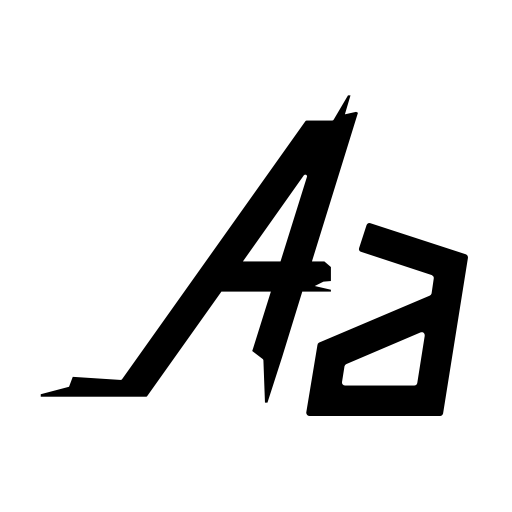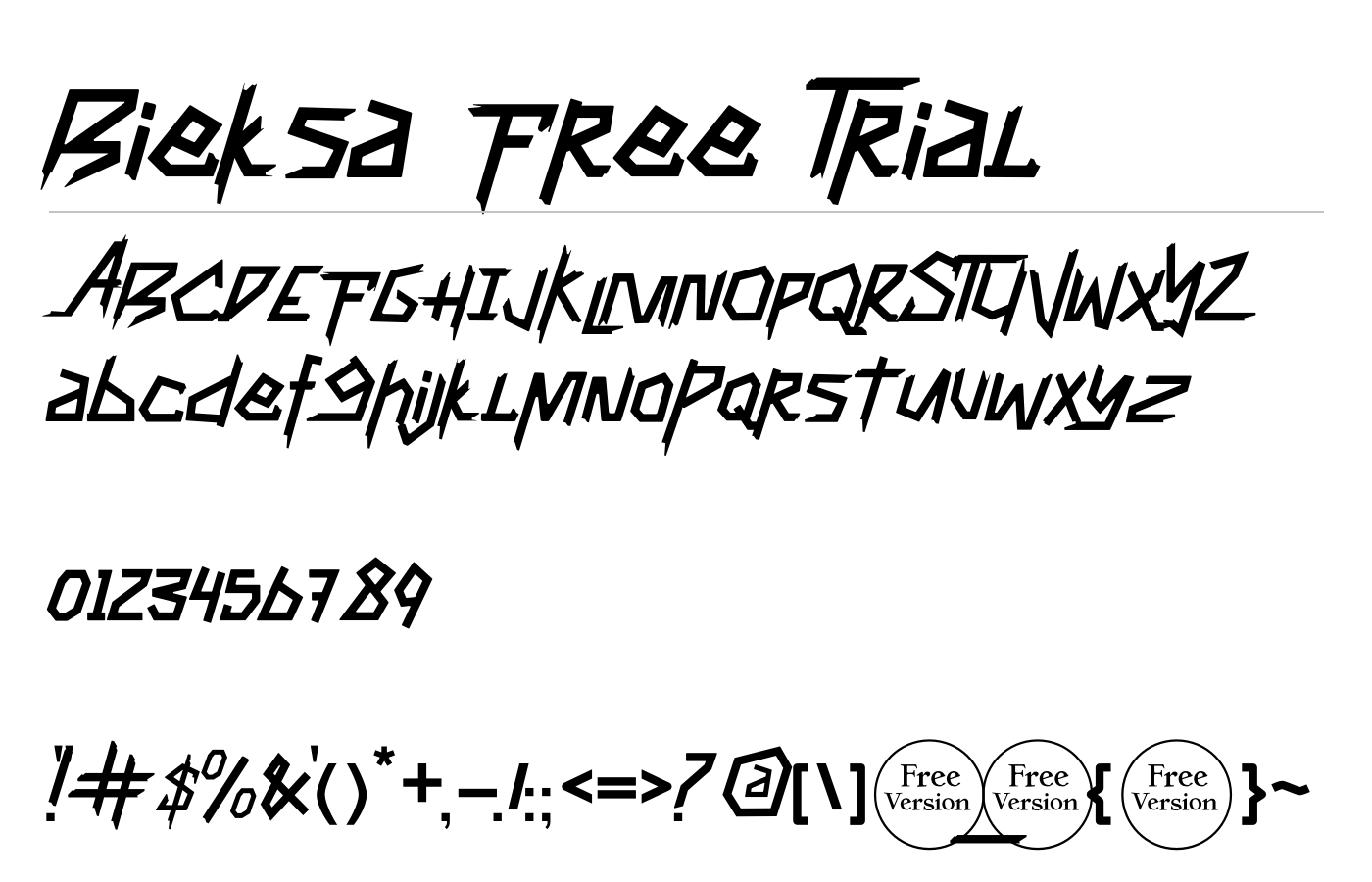
Bieksa Free Trial is a bold, angular sans serif font with a sharp, edgy style that gives a dynamic and energetic feel. Its unique jagged strokes and irregular letter shapes convey a modern, rebellious personality, making it ideal for impactful headlines, posters, and branding aimed at youth culture or alternative scenes. This font works best in creative projects where a striking, unconventional look is desired.
Bieksa Free Trial Font
About Bieksa Free Trial Font